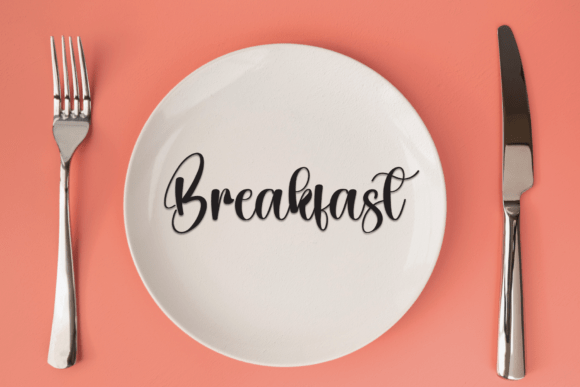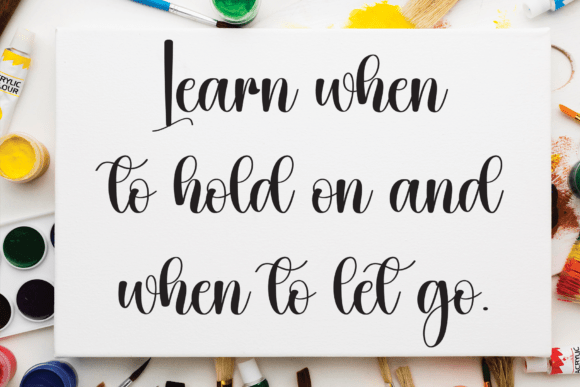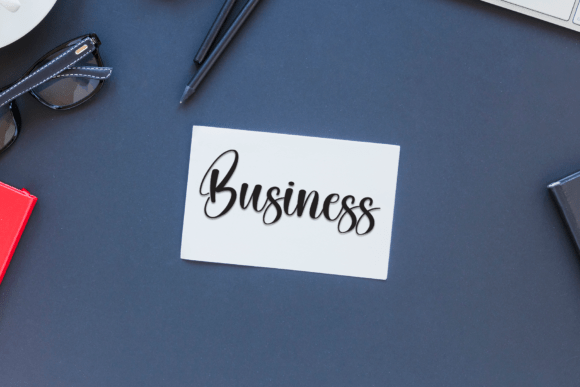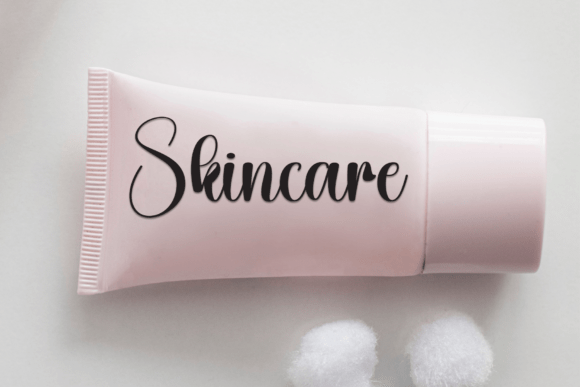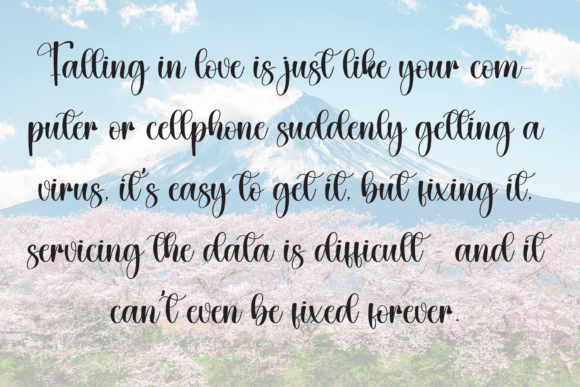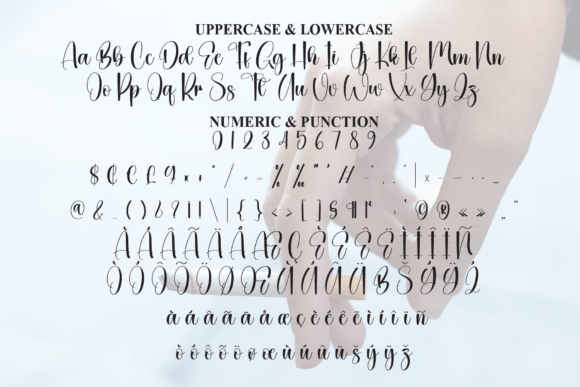
Introducing Cigarette Font: Elevate Your Designs with a Touch of Sophistication
Are you tired of using the same old fonts in your designs? Do you want to add a touch of elegance and sophistication to your projects? Look no further than Cigarette Font, the latest addition to our collection of creative products. Our font is designed to provide you with an extraordinary experience, perfect for a wide range of applications, from wall displays to wedding invitations, social media posts, logos, advertisements, product packaging, and more.
What Sets Cigarette Font Apart?
Our Cigarette Font is a unique and stylish addition to any design project. With its elegant and refined appearance, it’s perfect for crafters, designers, and anyone looking to add a touch of luxury to their work. The font features:
- A beautiful, hand-crafted design that’s perfect for a wide range of applications
- A modern and sophisticated style that’s sure to impress
As a designer or crafter, you know how important it is to have access to high-quality fonts that can help you stand out from the crowd. Cigarette Font is perfect for:
- Wall displays and signage
- Social media posts and logos
- Advertisements and marketing materials
- Product packaging and design
- Labels and photography
- Watermarks and invitations
- Stationery and any project that requires tasteful handwriting
Why Choose Cigarette Font?
- Unique and stylish design that’s sure to impress
- High-quality font that’s perfect for professional designs